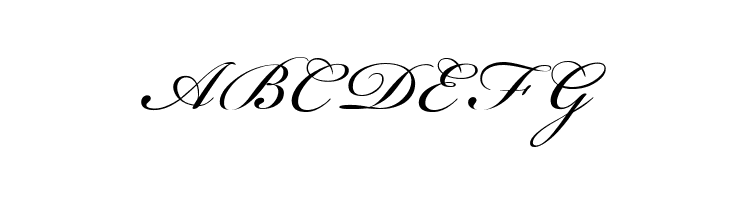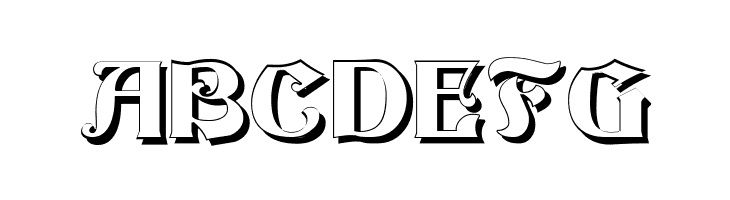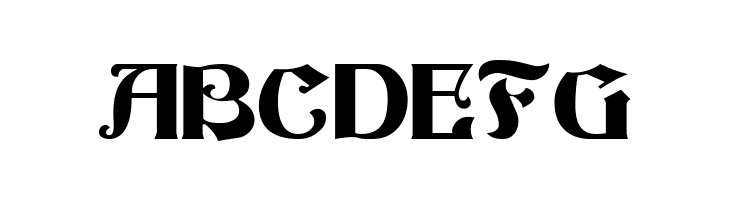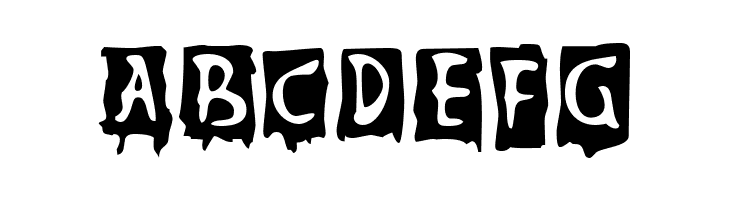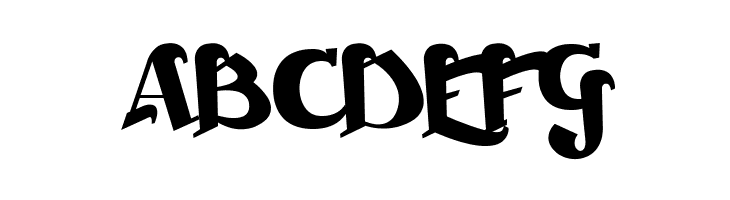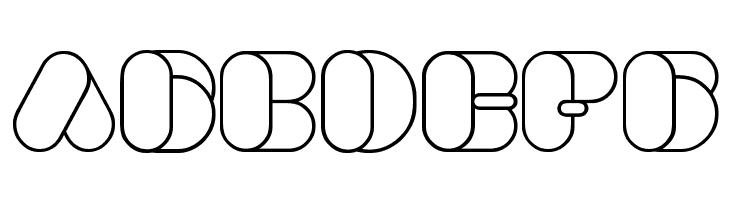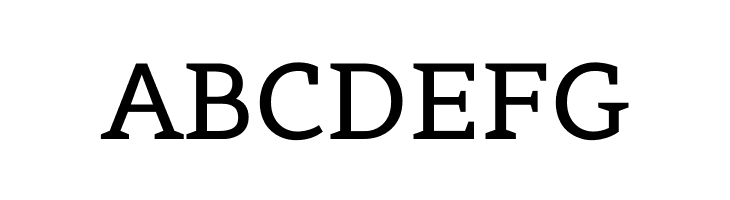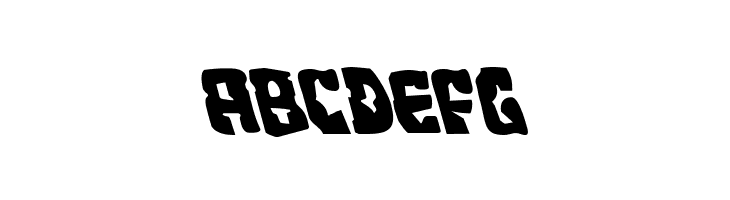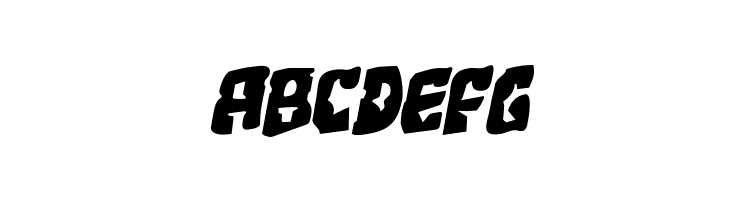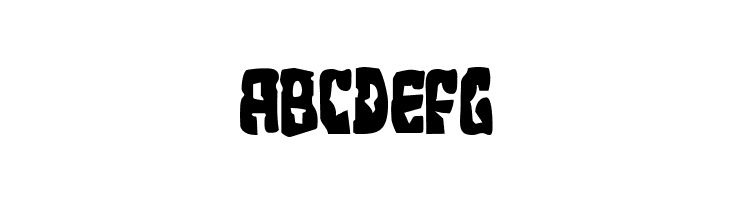
A playful, bubble-inspired decorative font with interconnected circular motifs.
A bold, angular font with a futuristic and industrial feel.
A bold, 3D italic font with outlined characters and a playful style.
A bold, 3D, playful font with a graffiti-like style.
A bold, condensed font with a rugged, textured appearance.
A bold, condensed, and italicized font with a dynamic and energetic style.
A bold, rugged font with a handcrafted feel and strong visual impact.
A bold, expanded, and italicized font with a modern and dynamic style.
A bold, italicized font with thick, angular strokes and a dynamic, energetic style.
A bold, slanted, and highly stylized decorative font with a rugged appearance.
A bold, rugged font with thick, uneven strokes and a handcrafted feel.
A bold, dynamic font with thick strokes and sharp edges.
A bold, playful font with a rotated, dynamic style.
A bold, distressed font with a grunge-like, artistic style.
A bold, geometric font with overlapping shapes and a modern, artistic style.
A bold, geometric font with interlocking shapes and dynamic contrast.
A bold, dynamic font with sharp angles and curves, perfect for making a statement.
A bold blackletter font with intricate detailing and angular strokes.
A bold, decorative font with an inline design and angular serifs.
A bold, decorative font with a striking shadow effect and angular design.
A bold, angular font with high contrast and a futuristic style.
An elegant script font with flowing, cursive strokes and intricate loops.
An elegant script font with intricate swashes and flourishes.
A modern serif font with clean lines and balanced proportions.
A modern serif font with clean lines and a classic yet contemporary style.